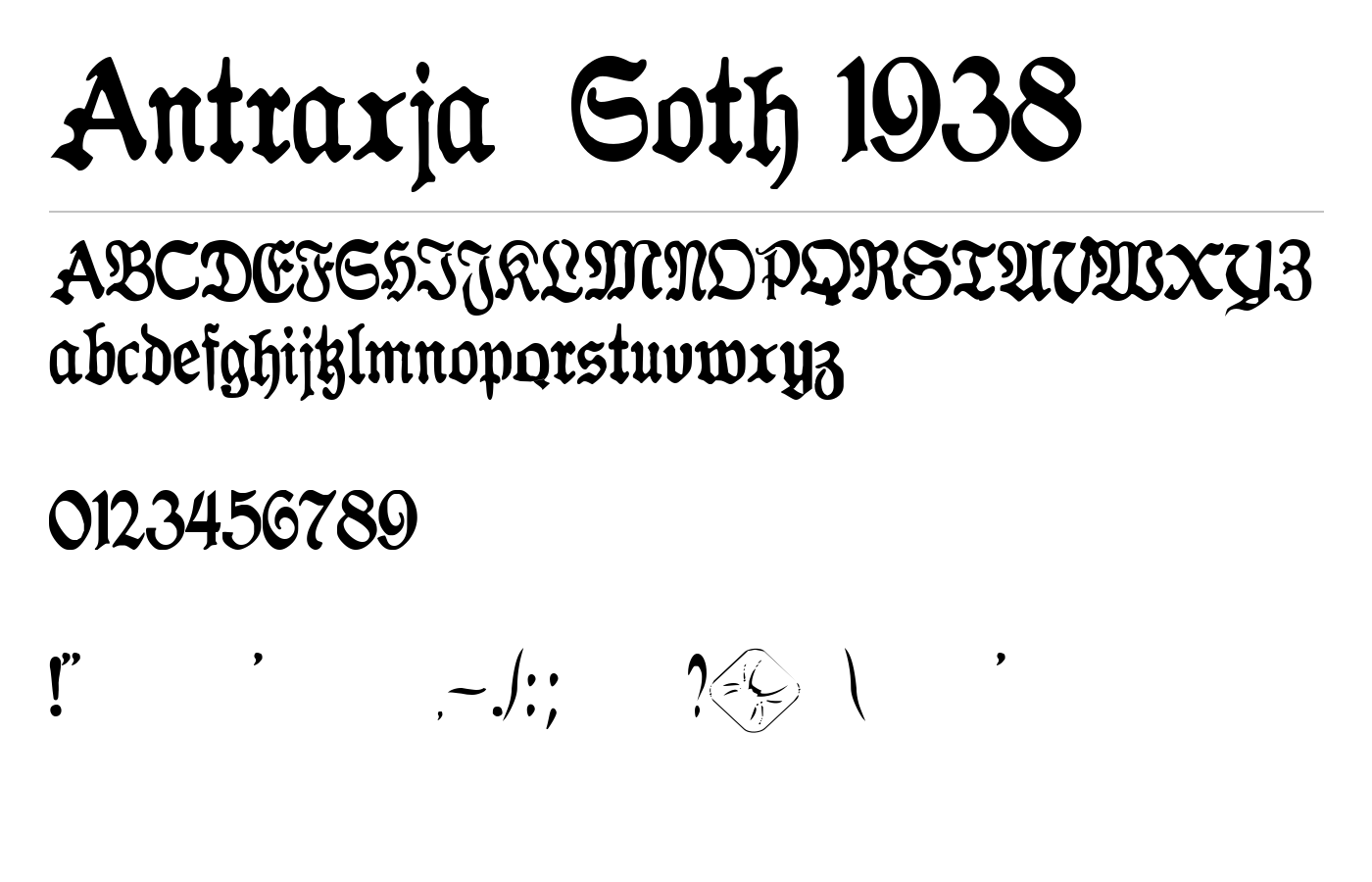
Antraxja Goth 1938 is a blackletter serif font characterized by its bold, condensed letterforms with sharp, angular strokes and high contrast between thick and thin lines. It features a traditional gothic style with intricate detailing, double-story glyphs, and a distinctive old-world charm perfect for vintage-inspired projects. This font works excellently in headlines, logos, and branding where a historic or medieval aesthetic is desired, lending a strong and dramatic personality to any design.
Antraxja Goth 1938 Font
About Antraxja Goth 1938 Font